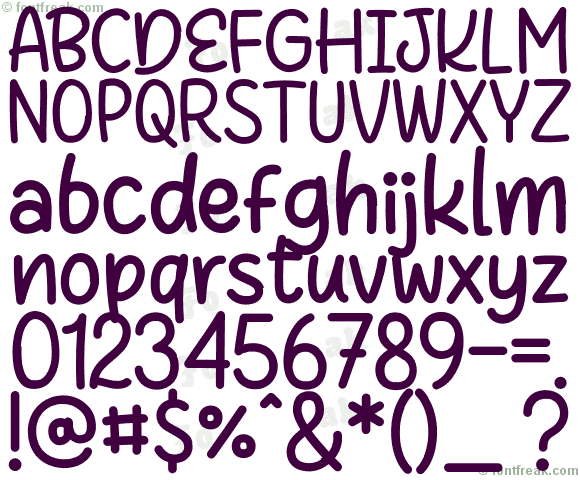
CutieDashleyRegular
About CutieDashleyRegular
CutieDashleyRegular is a delightful display font created by Mukhlis Muhammad in 2020, falling within the decorative category. This font exudes a playful and whimsical charm, characterized by its rounded, soft edges and a friendly appearance that makes it perfect for various creative projects. The stroke weight is consistent, providing a balanced visual appeal while maintaining a lighthearted presence. The spacing between letters is generous, enhancing legibility and adding to the overall cheerful aesthetic of the typeface.
This font is particularly well-suited for a range of applications including wedding invitations, where its charming style can evoke a sense of joy and celebration. It works beautifully on children’s book covers, capturing the playful essence of storytelling. For those in the food industry, CutieDashleyRegular can add a unique touch to restaurant menus, inviting diners to experience a warm and inviting atmosphere. Additionally, it can be effectively used in social media graphics and promotional materials, appealing to content creators looking to add a bit of fun to their designs.
The target audience for CutieDashleyRegular includes graphic designers, small business owners, and content creators who seek to infuse their projects with a sense of whimsy and character. Its versatility makes it an excellent choice for both digital and print designs, allowing users to communicate a friendly tone.
What sets the CutieDashleyRegular font apart is its ability to blend playful elegance with readability. The distinct yet approachable style makes it a standout choice for anyone looking to add a personal touch to their work. Experience the charm of this typeface today with a CutieDashleyRegular font free download and elevate your creative projects with its unique flair.